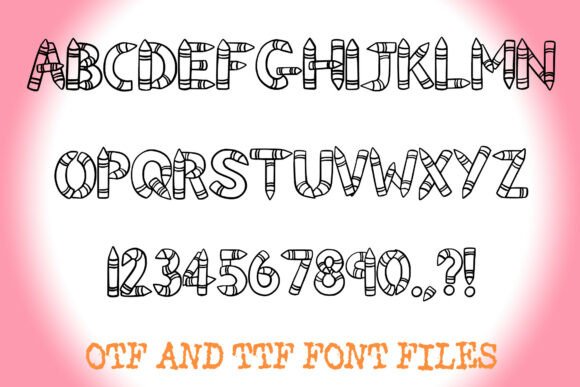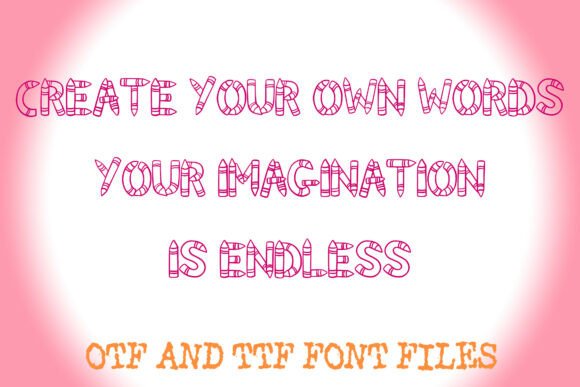
Crayons Font: Unleash Your Creativity with a Vibrant Decorative Display Font
Are you looking for a font that can add a playful touch to your designs? Do you want to create engaging and friendly visuals that spark imagination? Look no further than the Crayons Font, a vibrant decorative display font designed with playful creativity in mind.
A Font that Brings Joy and Whimsy
The Crayons Font is carefully illustrated to resemble a crayon, complete with banded tips and colorful fills. Each letter is designed to bring instant joy and childlike whimsy to any design. Whether you’re a teacher, parent, or designer, this font is perfect for creating visuals that inspire creativity and imagination.
A Fun Cartoon Style Font
The Crayons Font is a fun cartoon style font that allows you to create your own words and color them to your vision! With its bright hues and outlined form, this font adds an unmistakable, cheerful touch to any design. You can use it to create engaging titles, headings, and text that will capture the attention of your audience.
Perfect for Designers, Teachers, and Parents
The Crayons Font is especially well-suited for designers, teachers, and parents who want to create friendly and engaging visuals. Whether you’re creating educational materials, craft projects, or marketing materials, this font is perfect for adding a playful touch. With its colorful and whimsical design, it’s sure to spark imagination and creativity in your audience.
Key Features of the Crayons Font
- Vibrant and colorful design: Each letter is carefully illustrated to resemble a crayon, complete with banded tips and colorful fills.
- Playful and whimsical: The font is designed to bring instant joy and childlike whimsy to any design.
- Customizable: You can create your own words and color them to your vision!
- Fun cartoon style: The font has a fun and playful cartoon style that’s perfect for creating engaging visuals.
- Perfect for designers, teachers, and parents: The font is especially well-suited for creating friendly and engaging visuals for educational materials, craft projects, and marketing materials.
How to Use the Crayons Font
The Crayons Font is easy to use and can be incorporated into a variety of design projects. Here are a few ideas to get you started:
- Educational materials: Use the Crayons Font to create engaging and interactive educational materials, such as worksheets, activity sheets, and posters.
- Craft projects: Add a playful touch to your craft projects, such as scrapbooking, card making, and DIY projects.
- Marketing materials: Use the Crayons Font to create friendly and engaging marketing materials, such as brochures, flyers, and social media graphics.
- Party decorations: Create custom party decorations, such as banners, signs, and invitations, with the Crayons Font.